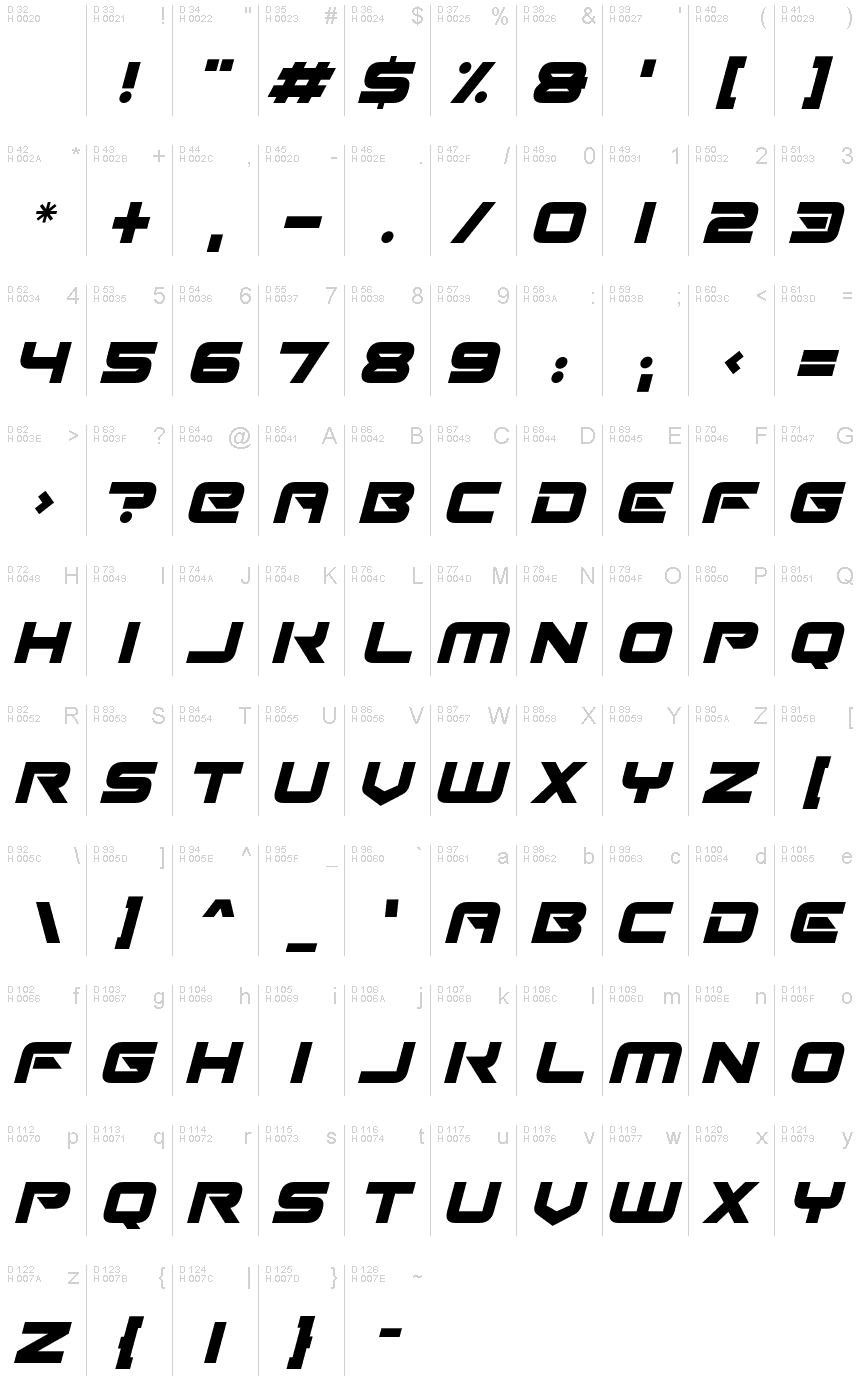
Robo Girls Italic
Introducing Robo Girls Italic, a bold and wide futuristic display font designed by Darrell Flood. With its robotic-inspired letterforms, this typeface is perfect for science fiction projects or any project needing an ultra-modern vibe. From eye-catching headlines to logos and packaging designs, Robo Girls Italic adds a unique style to your texts.